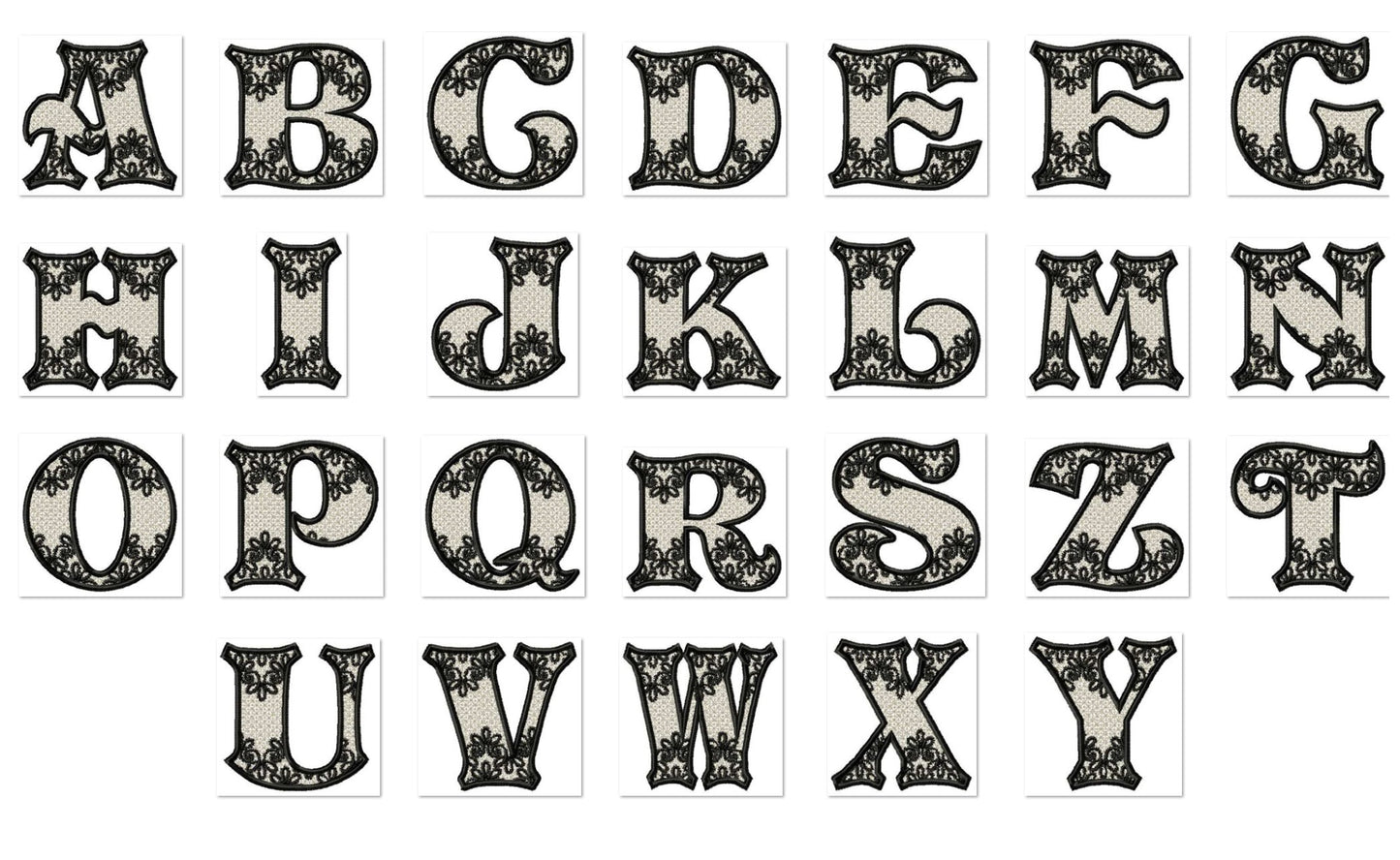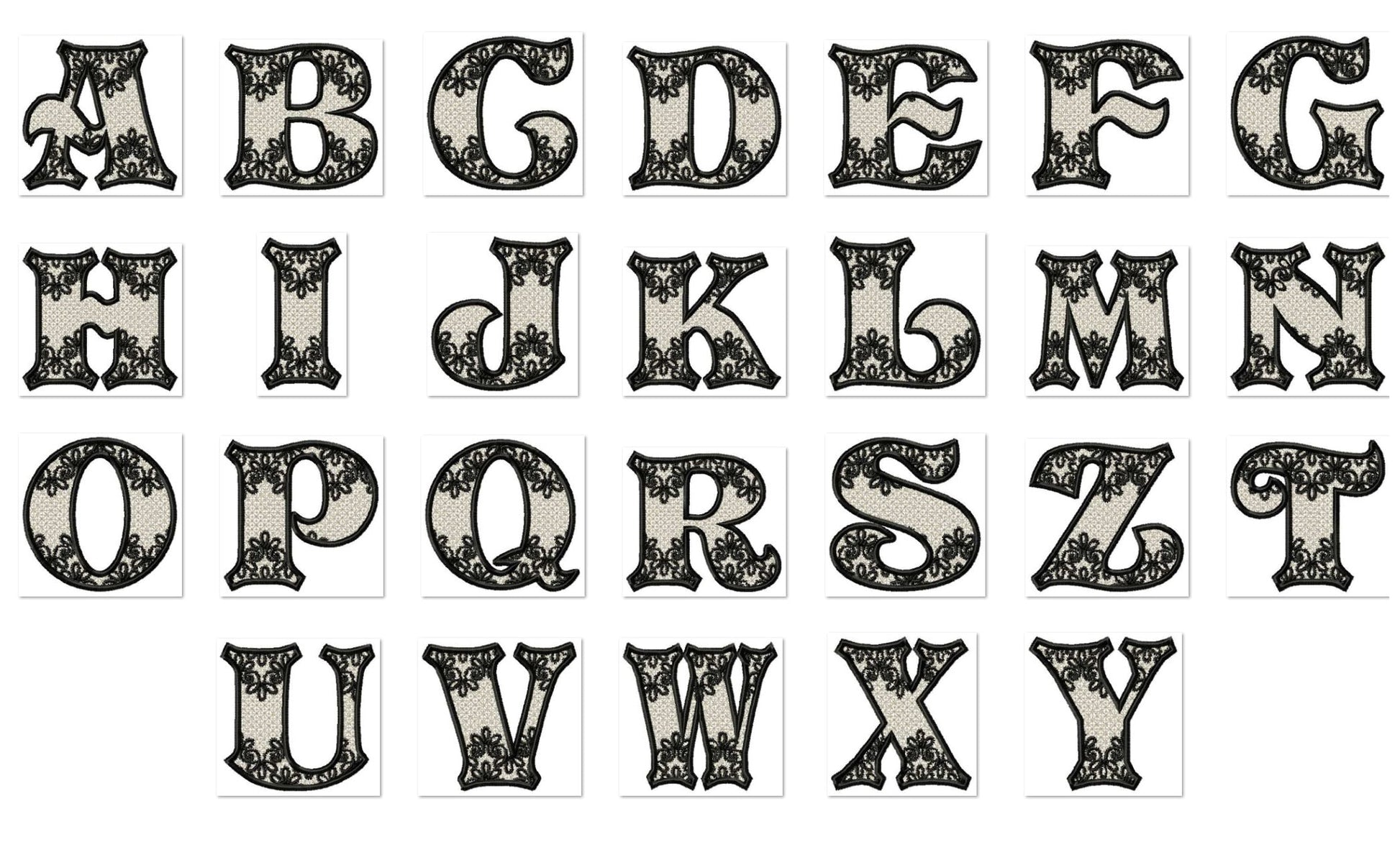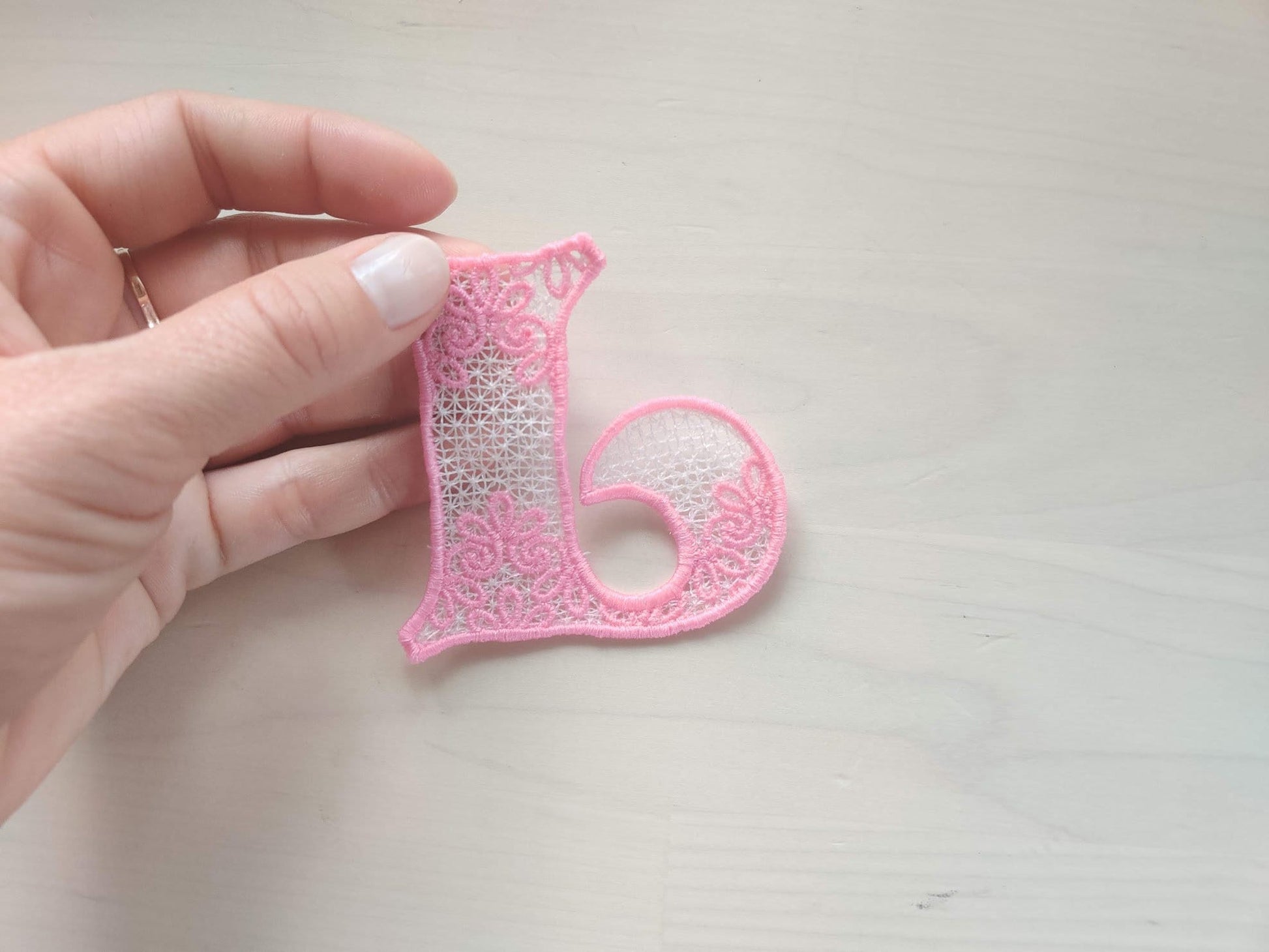
Or click to open the linkA delicate freestanding lace monogram font, for lacy initials on garlands, gift toppers and decorations.
Uppercase letters A to Z in three sizes: 3, 4 and 5 inches. Stitched on water-soluble stabilizer, then rinsed, so no fabric is needed.